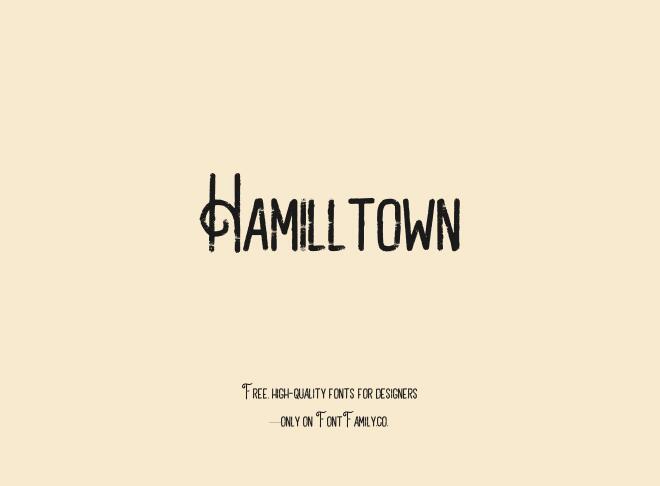
Hamilltown Font
Introducing the Hamilltown Font, a playful, modern, and decorative typeface that's perfect for designers aiming to bring a touch of whimsy to their work. With its handwritten flair and unique charm, Hamilltown Font is a delightful addition to any design project. It's ideal for logos, branding, merchandise, social media posts, and more. The font draws comparisons to other modern handwritten fonts, yet stands out with its distinctive style and character. The Hamilltown Font is a great choice for designers due to its versatility and attractive design. Its playful vibe can lighten up any design and make it instantly more appealing to the viewer. This font is a must-have addition to your design toolkit.